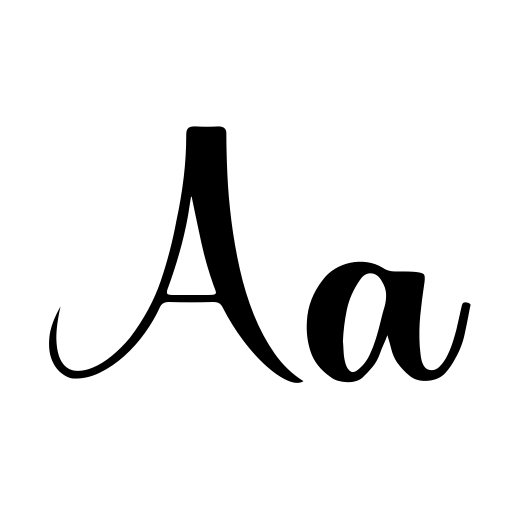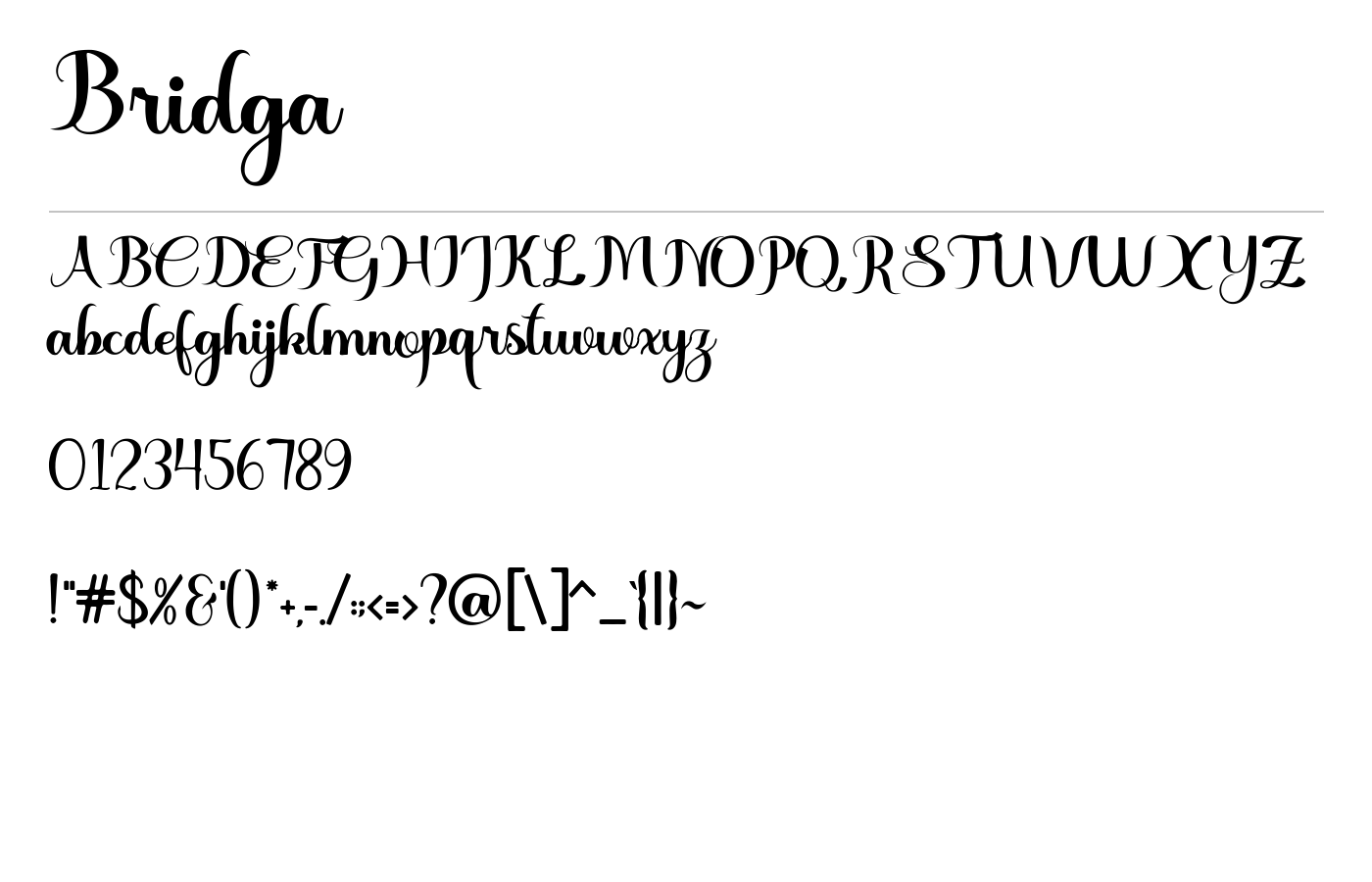
Bridga is an elegant script font with a refined, modern flair, featuring graceful, flowing letterforms and moderate contrast that add a stylish yet readable touch. Its delicate curves and unique character shapes make it ideal for luxury branding, invitations, and creative headlines where a sophisticated and artistic mood is desired. This font works beautifully for designs that need a blend of charm and professionalism, especially in fashion, packaging, and editorial projects.
Bridga Font
About Bridga Font